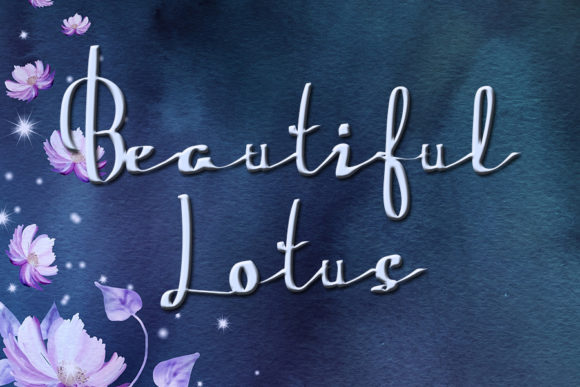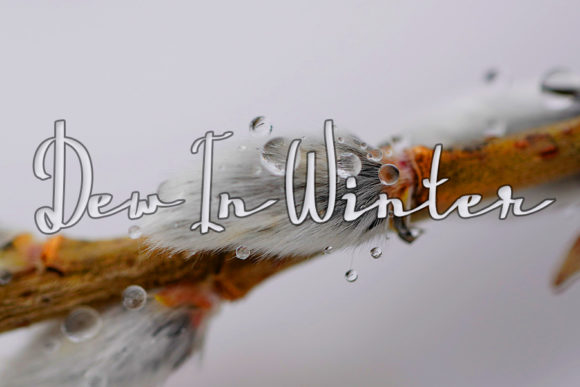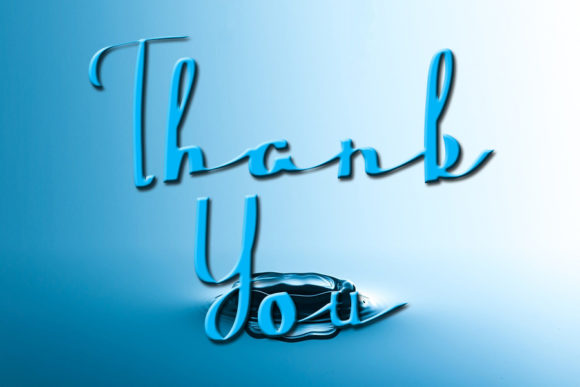
Introducing Big Day Font: Elevate Your Designs with Luxury and Elegance
Are you looking for a font that can add a touch of luxury and sophistication to your design projects? Look no further than Big Day Font, a beautiful light handwritten font that is sure to make a stunning impact. With its unique feel and elegant style, Big Day Font is the perfect choice for designers and crafters who want to take their designs to the next level.
What Makes Big Day Font So Special?
Big Day Font is a one-of-a-kind font that boasts a distinctive and eye-catching style. Its light handwritten feel gives it a personal and approachable touch, making it perfect for a wide range of design projects, from wedding invitations and branding materials to packaging and advertising. Whether you’re looking to create a luxurious and high-end feel or a more playful and whimsical vibe, Big Day Font is the perfect choice.
The Power of PUA Encoding
One of the standout features of Big Day Font is its PUA (Private Use Area) encoding. This means that you can access all of the amazing glyphs and ligatures with ease, giving you complete creative control over your designs. With PUA encoding, you can easily insert special characters, swashes, and other unique elements into your text, allowing you to create truly custom and eye-catching designs.
With Big Day Font, the design possibilities are endless. Use it to create stunning wedding invitations, elegant branding materials, and eye-catching packaging. You can also use it to add a touch of luxury to your website, social media graphics, or advertising campaigns. The versatility of Big Day Font makes it a valuable addition to any designer’s toolkit.
Big Day Font is a dream come true for designers and crafters who want to create beautiful and unique designs. Whether you’re a professional designer or a DIY crafter, this font is easy to use and provides a level of sophistication and elegance that’s hard to find in other fonts. With Big Day Font, you can create designs that are truly one-of-a-kind and reflect your personal style.
Key Features of Big Day Font
- Beautiful light handwritten font with a unique feel
- Perfect for a wide range of design projects, from wedding invitations to branding materials
- Elegant and sophisticated style that’s sure to make a stunning impact
- Endless design possibilities with Big Day Font
In conclusion, Big Day Font is a beautiful and versatile font that’s perfect for designers and crafters who want to add a touch of luxury and sophistication to their designs. With its unique feel, elegant style, and PUA encoding, this font is sure to make a stunning impact in any design project. Whether you’re creating wedding invitations, branding materials, or packaging, Big Day Font is the perfect choice. So why wait? Download Big Day Font today and start creating designs that are truly one-of-a-kind.